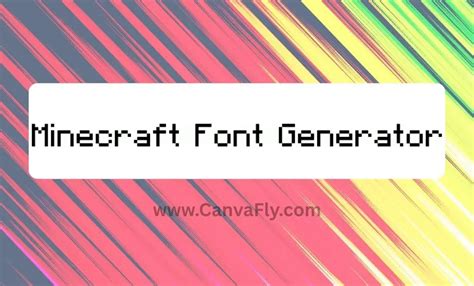
Minecraft Fonts Generator. Web create stunning and immersive text effects for your minecraft or video game projects with our advanced font style text effect. Web the text generator below will allow you to create text graphics similar to the style of minecraft logo.